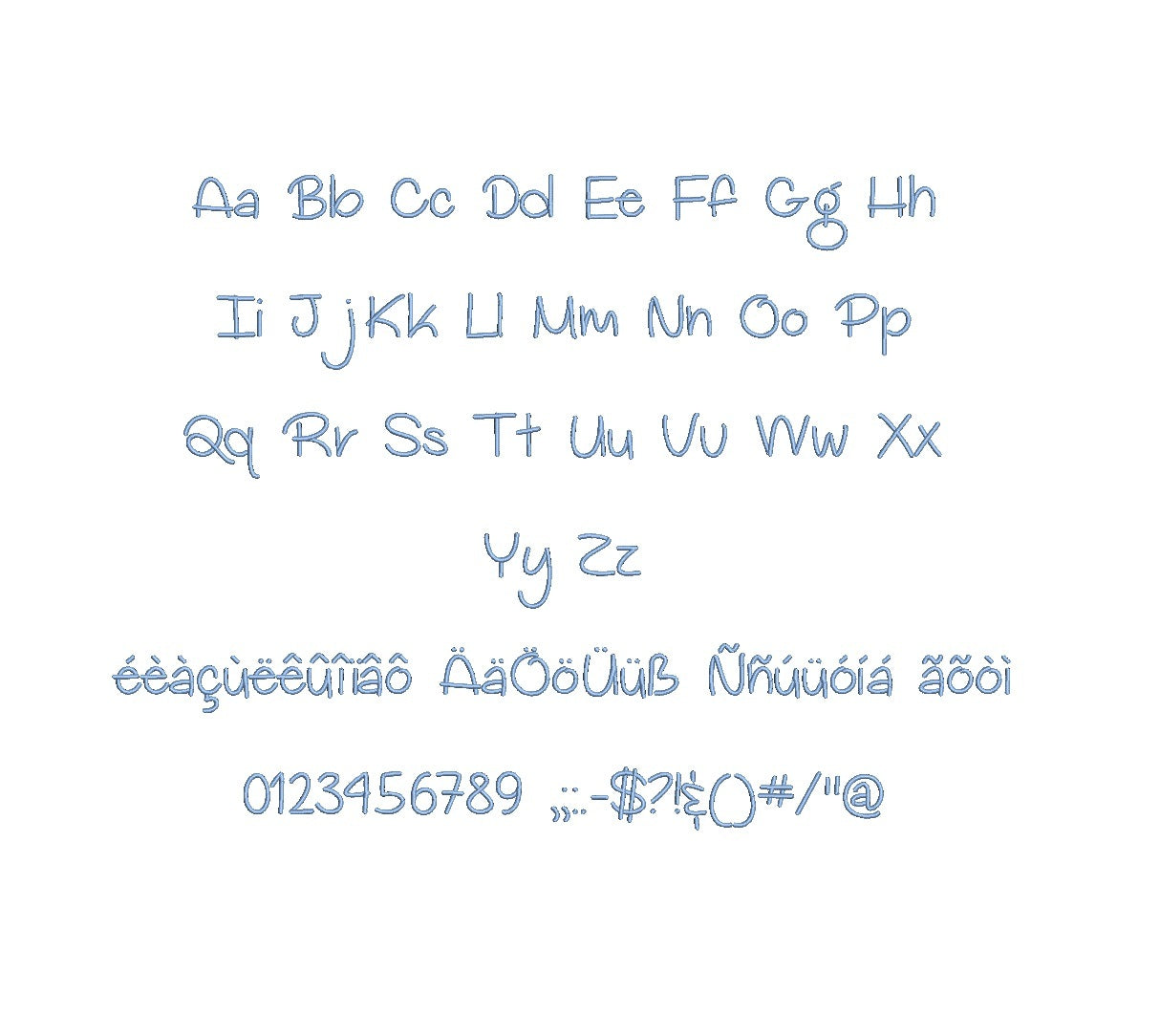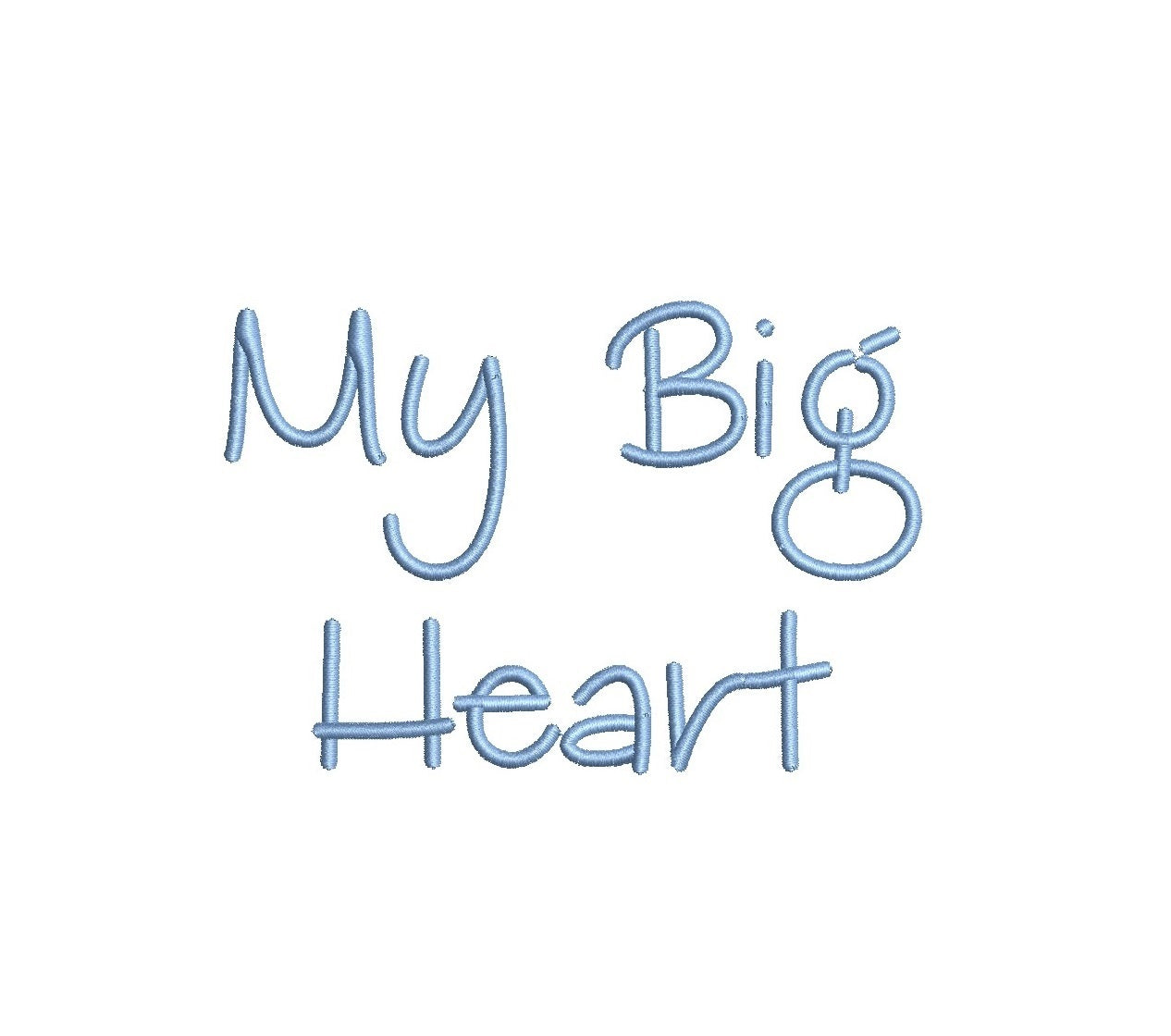
Embrace love with My Big Heart Regular ESA font, a heartfelt choice for your embroidery designs. Infused with affection, this font exudes warmth and tenderness. Compatible with Wilcom Studio e4.5.6 and Hatch 3 versions and up, it seamlessly integrates into your digitization process. Craft endearing monograms, logos, and decorative accents effortlessly, expressing emotions through every stitch. Elevate your embroidery projects with a touch of compassion and make them truly standout. Don't miss the chance to showcase your affection with My Big Heart Regular ESA font. Experience the beauty of heartfelt artistry in your creations today!